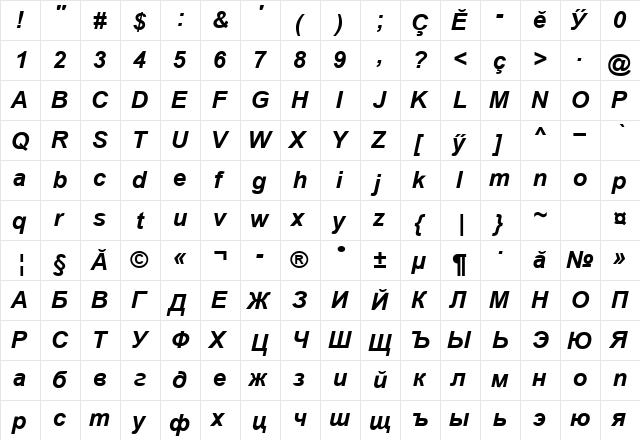
Arial Cyr Boldit Chuv Bold Italic Font Preview
Design Context for Arial Cyr Boldit Chuv Typeface
Arial Cyr Boldit Chuv offers clean, dependable letterforms without strong stylistic allegiance, making it a practical choice for designers who need flexibility. Its italic angle brings a sense of urgency and motion to the letterforms. The heavy weight commands attention and anchors typographic hierarchies.
Pro Tip: Use Arial Cyr Boldit Chuv for emphasis, pull quotes, and subheadings where its slanted energy can add rhythm to the layout.